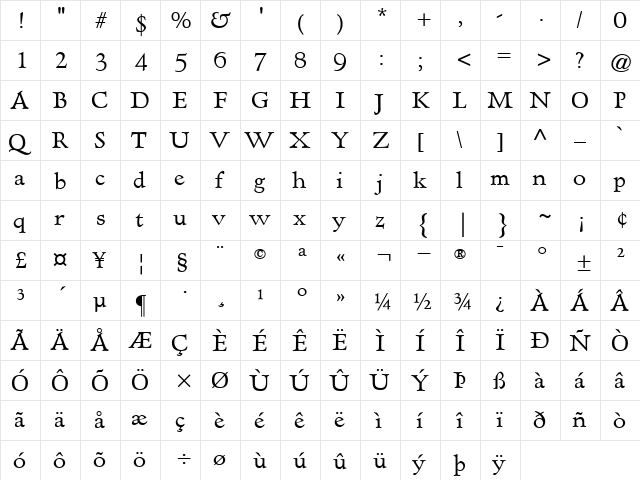
Hadriano-Light Light
Design Context for Hadriano-Light Typeface
Hadriano-Light offers clean, dependable letterforms without strong stylistic allegiance, making it a practical choice for designers who need flexibility. Its slender proportions lend an understated elegance to any composition.